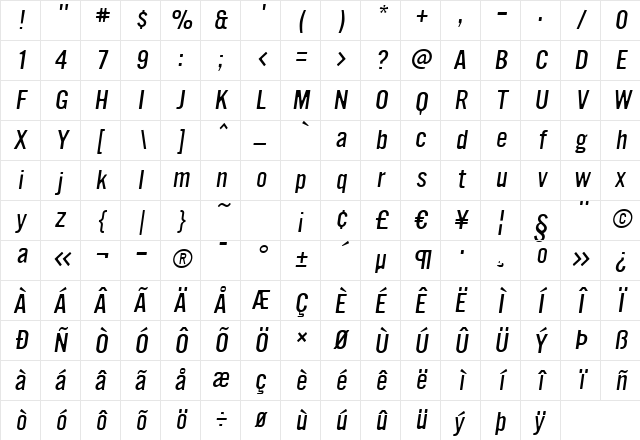
Ultramagnetic LightOblique
Style: LightOblique
Foundry: YouWorkForThem
Designer: Michael Cina
Ultramagnetic Family
Ultramagnetic LightOblique
Design Context for Ultramagnetic
Ultramagnetic is a composed and adaptable typeface that performs quietly and consistently across a wide range of design contexts. The slanted form adds forward momentum and visual energy. Its slender proportions lend an understated elegance to any composition.